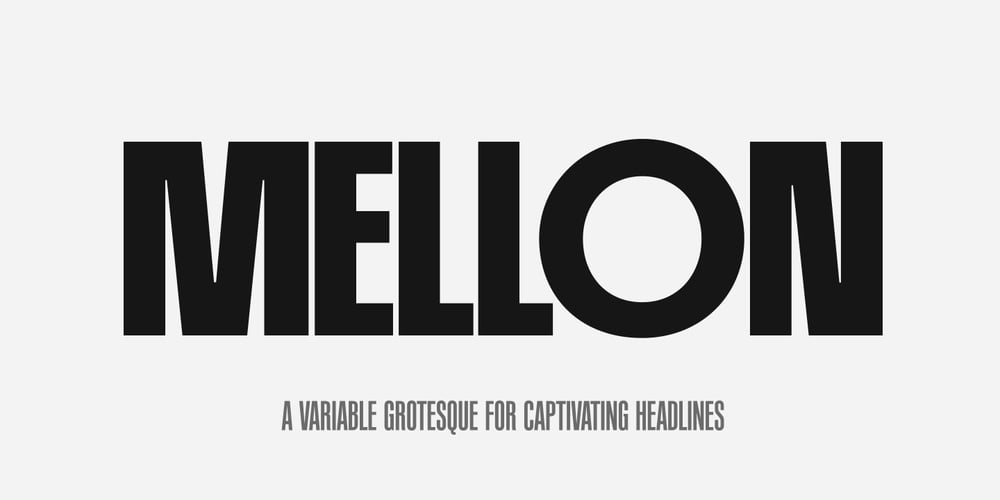
PF Mellon Font Family was designed by Panos Vassiliou and published by Parachute. PF Mellon contains 5 styles and family package options. PF Mellon is a modernist variable grotesque with mixed roots. Its unconventional aesthetic is the product of an exploration into the art of emphasizing titles, headlines and text in captivating and unpredictable ways. Contrary to conventional practices of highlighting text with heavier weights, PF Mellon proposes an intriguing new scheme based on striking and attention-grabbing compositions of narrow and extended letterforms- even when set in lowercase. Part geometric and part grotesque, PF Mellon’s expressionist alphabet and extravagant style challenge conventions of visual culture in an Art Deco-like manner. PF Mellon’s rebellious idiosyncrasy takes its cues from the eccentric personality of our popular PF Venue, an earlier geometric sans serif characterized by its daring combinations of non-uniform structures. PF Mellon’s basic design skeleton was influenced by nineteenth and early twentieth century condensed sans serif typefaces such as Stephenson Blake’s Grotesque No.77 and ATF’s Alternate Gothic, adding an extra contrast to the thickness of strokes. PF Mellon is also available as a variable font format which you may request it free of charge from Parachute® once you purchase the whole type family.